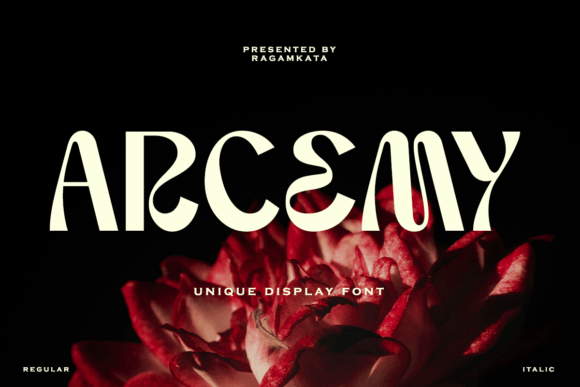
A New Era of Display Sans: Introducing Arcemy Font
Have you ever stared at a blank page, struggling to find the perfect font to capture the essence of your creative vision? You’re not alone. As designers, we’ve all been there – pouring over font libraries, searching for that elusive combination of style and substance. And then, like a breath of fresh air, a new font emerges, revolutionizing the way we think about typography.
Enter Arcemy Font, a display sans font designed to breathe life into your next project. With its unique letter proportions and carefully curated alternates, Arcemy Font brings a friendly, approachable feel to even the most mundane designs. Perfect for headlines, titles, branding, and posters, this versatile font is a must-have for designers seeking to add a touch of retro charm and modern sensibility to their work.
Arcemy Font Key Features
- Unique Characteristics: Arcemy Font features a unique blend of modern and traditional elements, with distinctive letterforms and a high x-height, making it ideal for use in body text and display typography.
- Scalability: Arcemy Font is designed to be highly scalable, allowing it to be used effectively in a wide range of contexts, from small text to large display headings.
Review of Arcemy Font
I recently had the chance to work with the Arcemy font, and I must say it’s a unique addition to any design project. ✨ The font’s modern and elegant feel makes it perfect for creative industries, such as fashion, art, or lifestyle brands. Its versatility allows it to be used in a variety of contexts, from logos to body text.
- ✨ Its unique character set is a major highlight, with a wide range of glyphs and symbols that add a touch of personality to any design.
- ✨ The font’s high legibility ensures that it’s easy to read, even at small font sizes.
However, I did encounter a few limitations during my review. ⚠️ The font’s lack of support for certain languages may be a concern for designers working on projects that require multilingual support. Additionally, the font’s complexity may make it difficult to customize or modify, which could be a limitation for designers who need to make significant changes.
Overall, I would recommend the Arcemy font to designers looking for a unique and elegant font to add to their projects. While it may have some limitations, its benefits far outweigh its drawbacks, and it’s definitely worth considering for any design project.
Tips for Getting the Most Out of Arcemy Font
Arcemy Font is ideal for:
- Creating elegant and modern designs
- Adding a touch of sophistication to your text
- Using in combination with other decorative fonts
Arcemy Font is commonly used for:
- Designing luxury products and packaging
Alternatives to Arcemy Font
Lato is a popular sans-serif font that offers a clean and modern look. It’s ideal for use in digital products, websites, and applications where a friendly and approachable tone is desired. Lato Font is more geometric and clean than Arcemy Font, making it a great choice for modern designs.
Montserrat is a geometric sans-serif font that’s perfect for use in urban and modern designs. It’s highly legible and works well in both digital and print media. Compared to Arcemy Font, Montserrat has a more angular and geometric feel, making it a great choice for designs that require a strong, urban aesthetic.
Open Sans is a clean and modern sans-serif font that’s highly legible and versatile. It’s ideal for use in digital products, websites, and applications where a clear and concise tone is desired. Open Sans is more minimalist and neutral than Arcemy Font, making it a great choice for designs that require a clean and professional look.